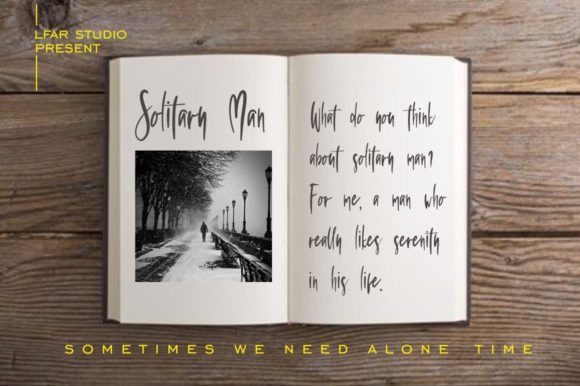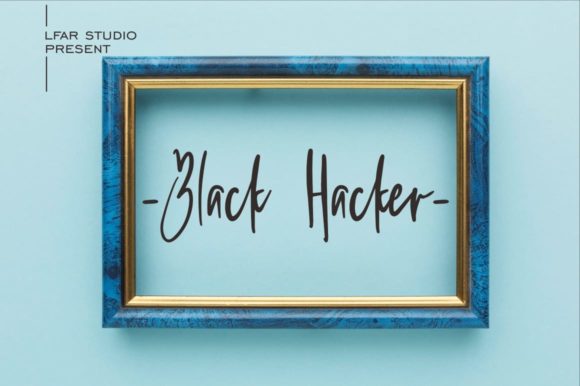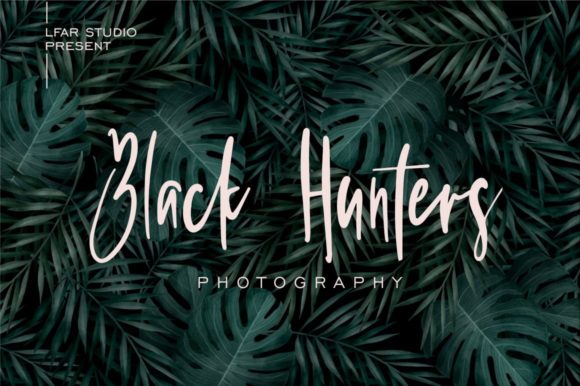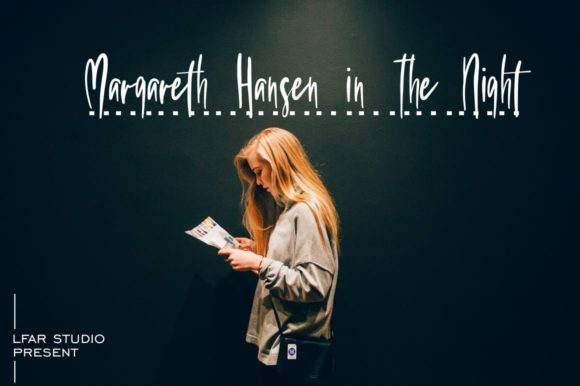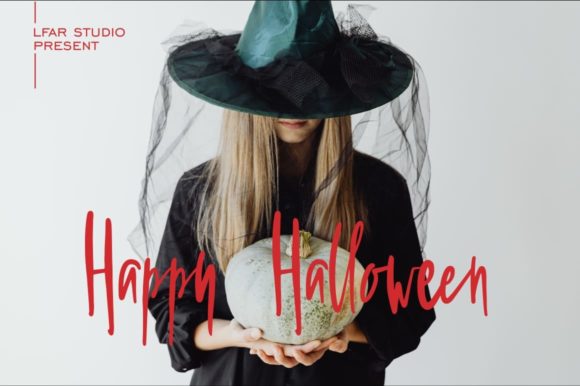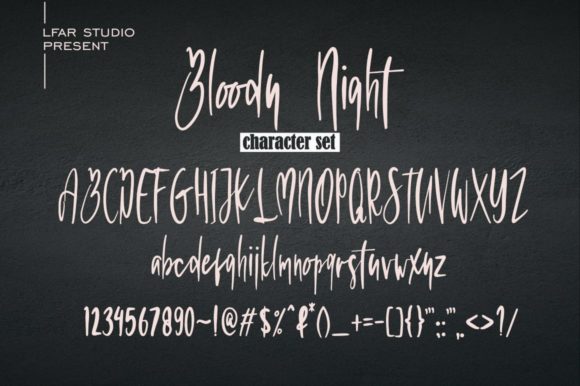
The Bloody Night Font: A Spooky Sensation for Designers
I still remember the night I was working on a Halloween-themed project for a client, and I was struggling to find the perfect font to convey the spooky atmosphere. The client wanted something that would make their audience shiver, but I was stuck with the usual boring fonts. That’s when I stumbled upon the Bloody Night font, and it was love at first sight! ✨
This dark, handwritten font with a horror feel and scary impression instantly caught my attention. I knew right then and there that it was the perfect fit for my project. In this article, I’ll share my experience with the Bloody Night font, its features, and how to make the most of it in various design platforms.
- ✨ The Bloody Night font has a unique, eerie feel that adds a touch of horror to any design project.
- ✅ It’s incredibly versatile and can be used for various purposes, such as movie titles, book covers, Halloween greetings, and more.
- 💡 The font’s dark and bold style makes it perfect for creating eye-catching designs that grab attention.
- 🎃 It’s a great addition to any designer’s font collection, especially those who work on Halloween-themed projects.
While the Bloody Night font is amazing, there are a few things to keep in mind: 🤔
- ⚠️ The font’s bold style may not be suitable for body text or long paragraphs, as it can be overwhelming to read.
- ⚠️ Some characters may not be suitable for use in children’s projects or designs aimed at a younger audience.
- Experiment with the font’s OpenType features, such as glyphs and stylistic alternates, to add more variety to your design.
The Designer Inspiration Behind Bloody Night
The Bloody Night font was inspired by the dark, eerie atmosphere of horror movies and haunted houses. The designer wanted to create a font that would evoke a sense of fear and unease, while also being visually striking and attention-grabbing.
The designer’s inspiration came from classic horror movies, such as The Exorcist and The Shining, as well as haunted houses and creepy abandoned places. The result is a font that’s perfect for creating spooky designs that will leave your audience shivering.
Q: What type of projects is the Bloody Night font best suited for?
A: The Bloody Night font is best suited for projects that require a dark, horror-themed atmosphere, such as Halloween greetings, movie titles, book covers, and more.